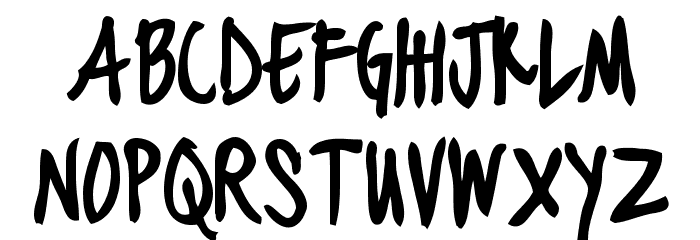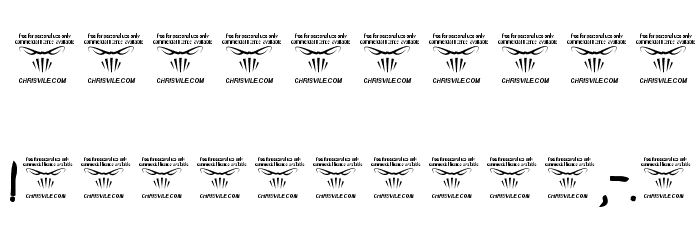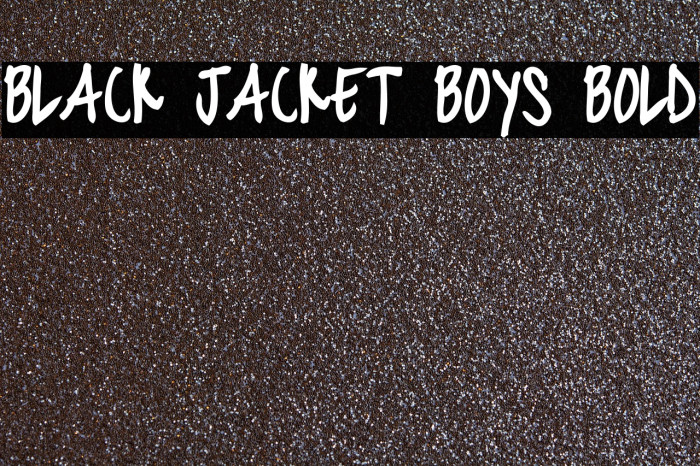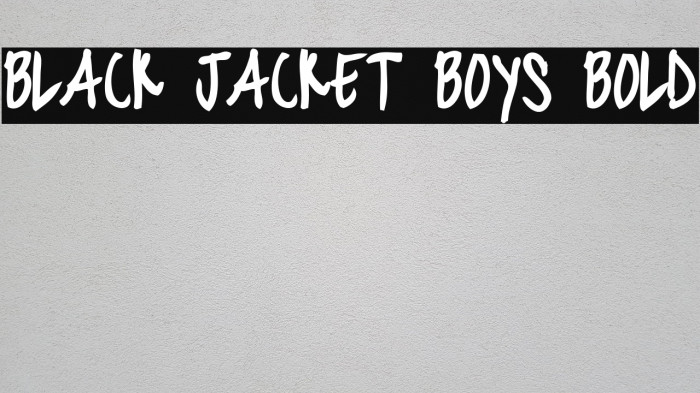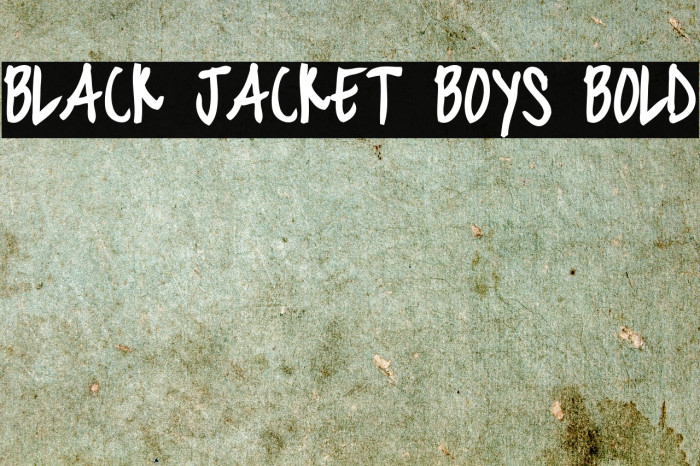
black jacket boys Bold Font
This font features a bold and dynamic handwritten style, characterized by its thick strokes and energetic flow. The letters exhibit a playful and informal aesthetic, with slightly irregular shapes that add to its charm. The uppercase and lowercase letters maintain a consistent weight, providing a cohesive look. The numerals and special characters are designed to match the overall style, ensuring versatility in various applications. The font's boldness makes it highly legible, while its unique style adds a touch of personality and creativity.
A bold, dynamic handwritten font with thick strokes and an energetic flow.